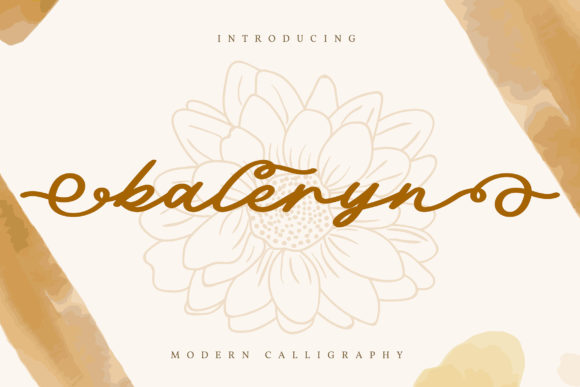
Escape the mundane, unleash your creativity, and immerse yourself in the enchanting world of Baleryn Font, a script font family designed to captivate your audience. Created by the visionary Vunira, Baleryn is an exquisite dance of cursive strokes, each letter a masterpiece of elegance and charm. Let your designs take flight with Baleryn's incredibly versatile style, effortlessly adapting to any project, from heartfelt invitations to eye-catching yard signs, and everything in between.
Embrace the beauty of Baleryn's distinct and well-rounded letters, carefully crafted to bring sophistication and a touch of whimsy to your creations. Fall in love with its captivating flow, as if each word dances across the page, leaving a trail of enchantment in its wake. Baleryn's PUA encoding opens up a world of possibilities, granting you effortless access to all the glyphs and swashes, empowering you to add intricate details and flourishes that elevate your designs to new heights.
Baleryn is more than just a font; it's an artistic expression waiting to be unleashed. Its delicate strokes lend a romantic touch to wedding invitations, while its playful curves add a dash of magic to children's books. Transform ordinary yard signs into captivating works of art, guaranteed to catch the eye of passersby. Let Baleryn lead you on a creative journey, where every project becomes a masterpiece, a reflection of your unique vision and artistry.
Whether you're a seasoned designer seeking to expand your horizons or a budding creative eager to make your mark, Baleryn Font is your ideal companion. Its versatility knows no bounds, inviting you to explore endless possibilities and bring your creative dreams to life. Experience the transformative power of Baleryn and let your imagination soar.
Step into a world of wonder, where words dance and designs come alive. Embrace the allure of Baleryn Font, and embark on a creative odyssey that will leave you breathless. Let your creations bloom with beauty, originality, and everlasting charm.